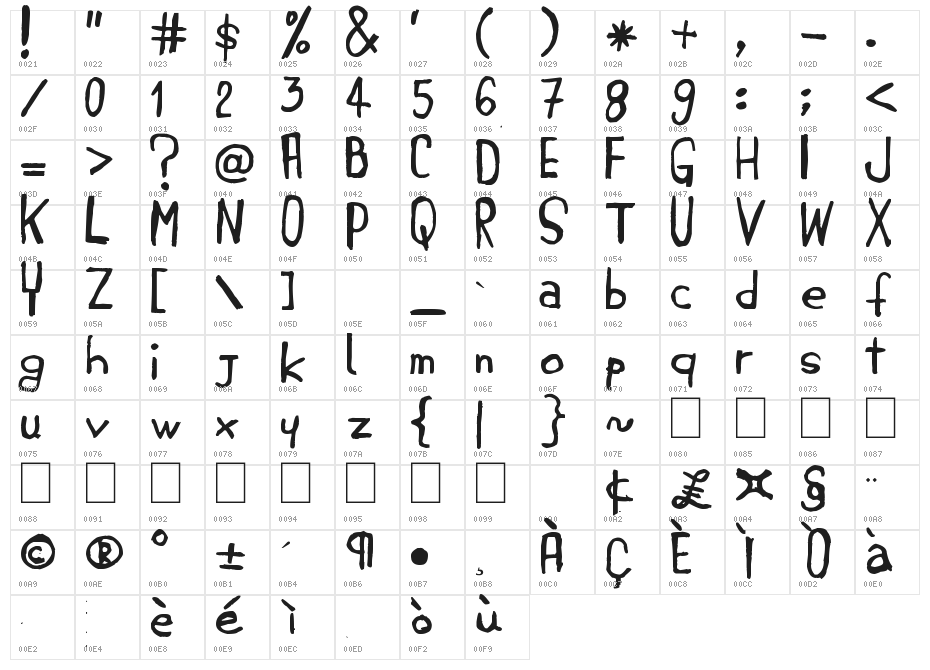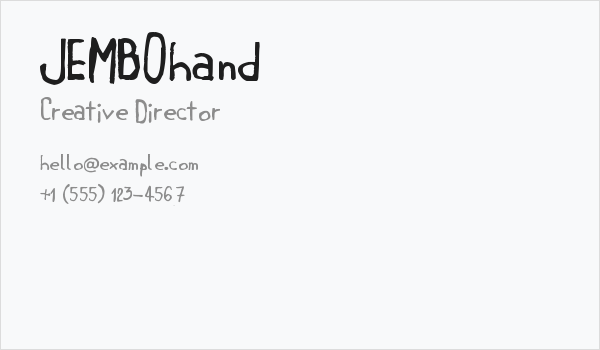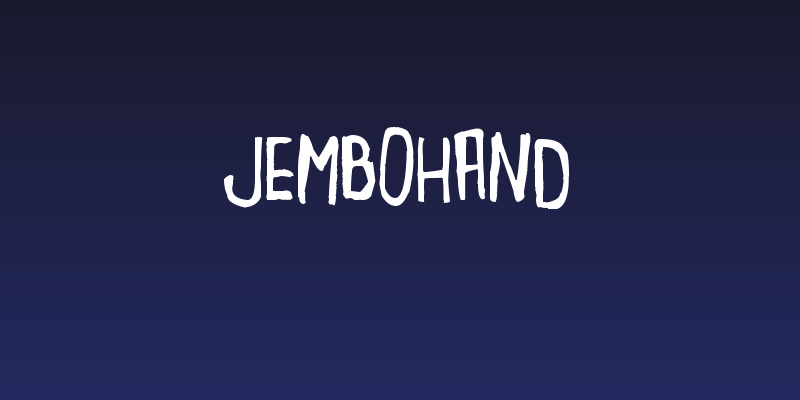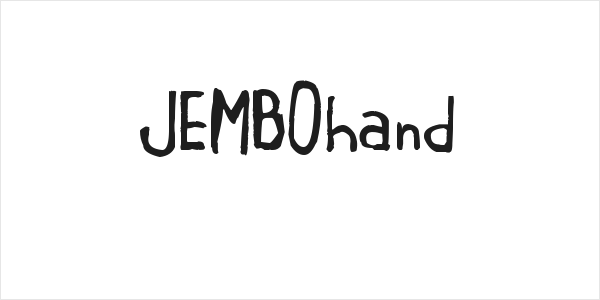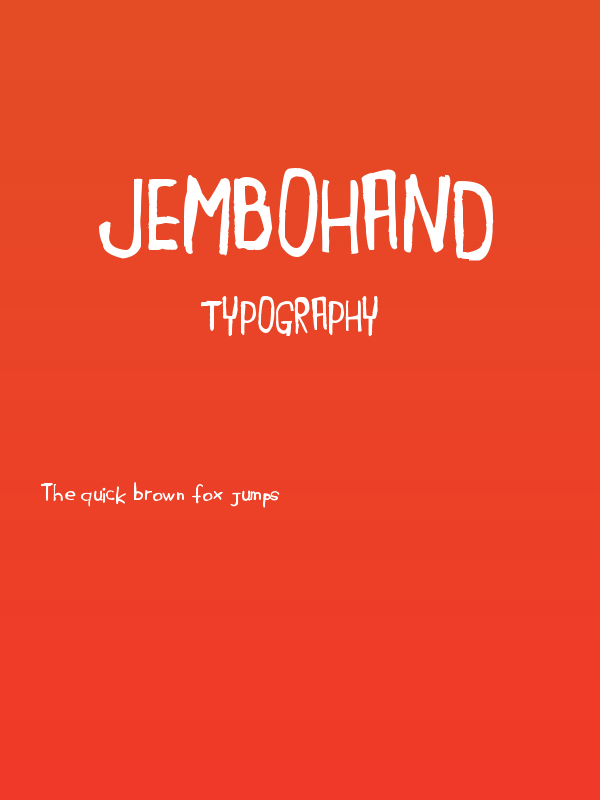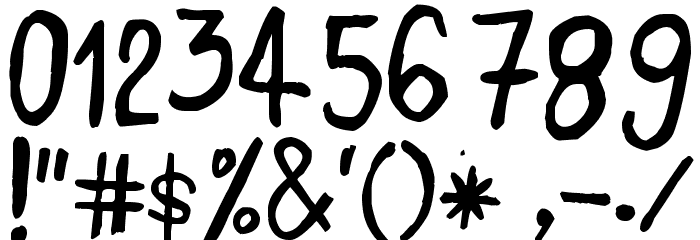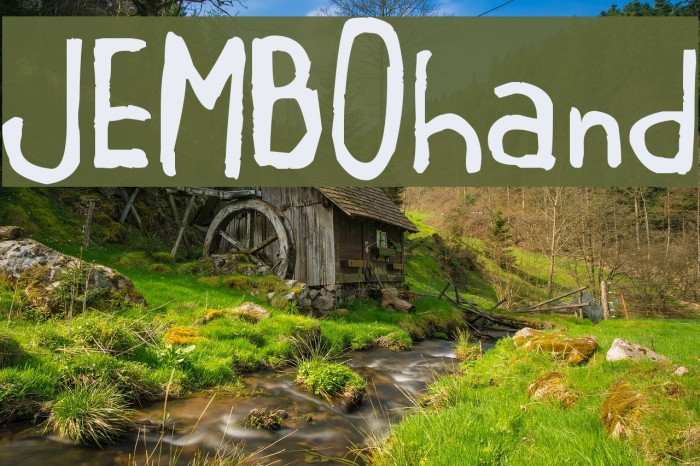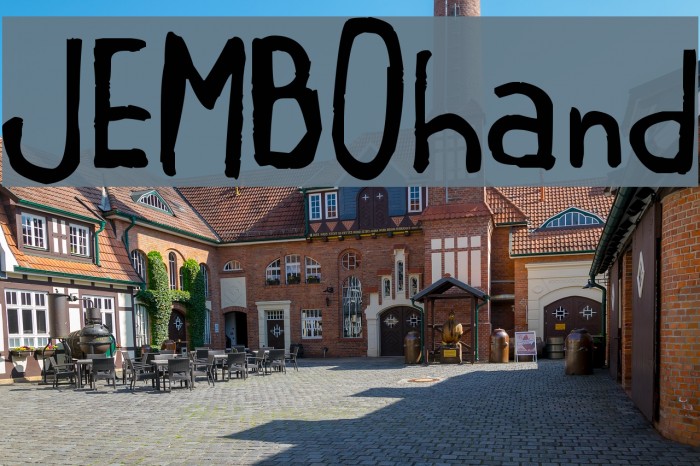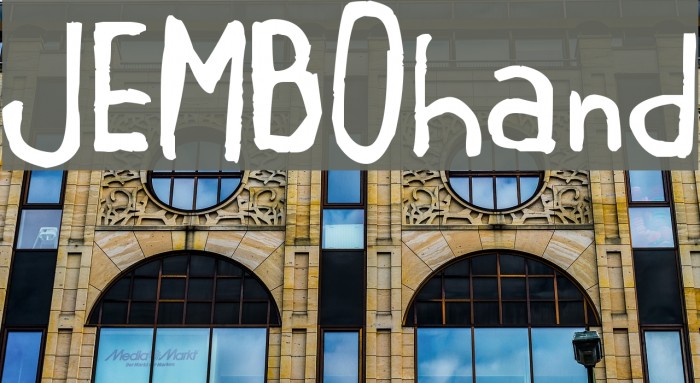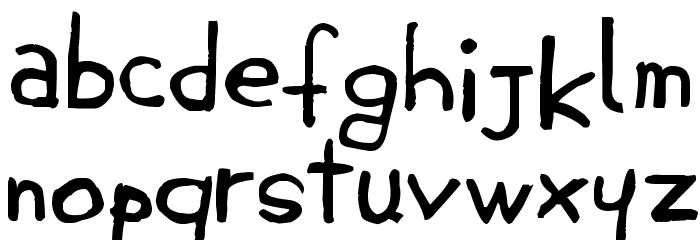
JEMBOhand Font
JEMBOhand Description
This font features a playful and informal handwritten style, characterized by its uneven strokes and slightly irregular letterforms. The uppercase letters are bold and prominent, while the lowercase letters maintain a consistent flow with a casual appearance. Numbers and special characters follow the same hand-drawn aesthetic, adding to the font's charm. The overall look is organic and approachable, making it suitable for projects that require a personal touch. The font's unique style is perfect for creative designs, adding a sense of individuality and warmth.
| Proposed Projects | Ideal for greeting cards, children's books, casual branding, and creative posters. |